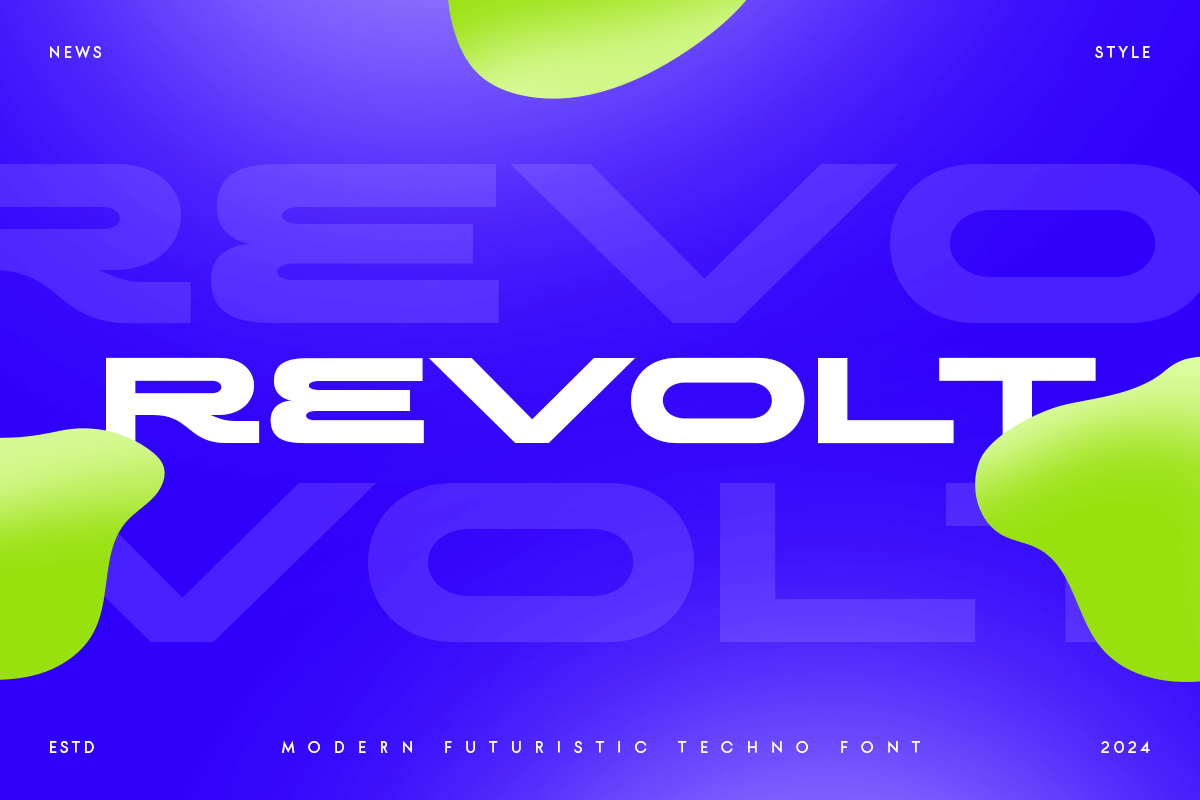
Revolt
-Modern Futuristic Techno Font
Revolt
Revolt is a Modern Futuristic Techno Font that created special for Technology, Sci-fi, modern and more stand out typography needs with futuristic style, with modern styles that make your design more memorable. It’s so perfect to add your style better for headline overview for future, technology, actions, and technology theme. And specially for this font, we crafted for bold action style and modern feels so enjoy to create any project that will show your main idea out.